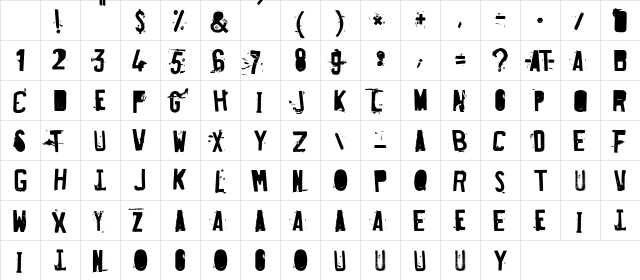
Complete Fucked Plate Regular glyph index. Displaying only characters natively supported by Fucked Plate Regular font.
Fucked Plate is a composed and adaptable typeface that performs quietly and consistently across a wide range of design contexts.